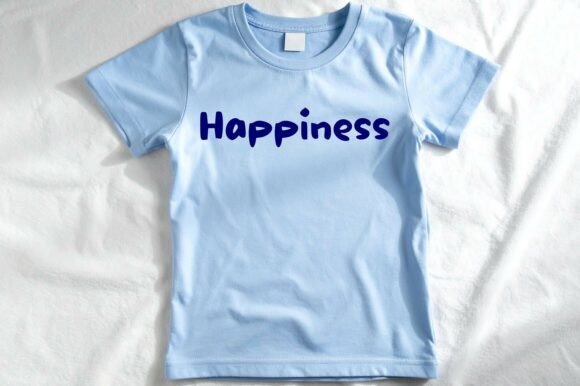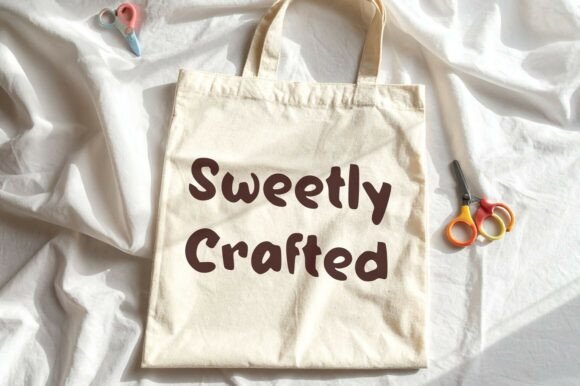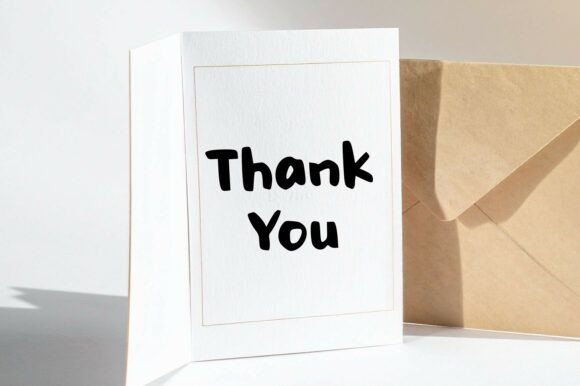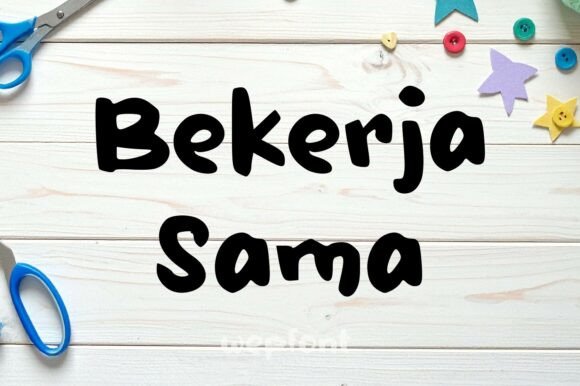
Bekerja Sama Font: A Playful and Bold Display Font for Your Designs
Are you looking for a font that can add a friendly yet confident personality to your designs? Look no further than Bekerja Sama, a playful and bold display font that’s perfect for creating approachable and eye-catching designs. In this article, we’ll explore what makes Bekerja Sama unique, its characteristics, and what you can expect from this fantastic font.
What Makes Bekerja Sama Unique?
Bekerja Sama stands out from other fonts with its distinctively chunky and slightly quirky letterforms. Each character carries a subtle handmade feel, preventing it from appearing too rigid or generic. This characteristic makes it feel authentic and adds a warm, personal touch to any design. The font’s slightly uneven, hand-drawn aesthetic gives it a unique charm that’s sure to grab attention.
Key Characteristics of Bekerja Sama
So, what makes Bekerja Sama a great choice for designers and crafters? Here are some of its key characteristics:
- Playful yet confident personality: Bekerja Sama exudes a friendly yet confident personality that’s perfect for designs that aim to be approachable and eye-catching.
- Hand-drawn aesthetic: The font’s slightly uneven, hand-drawn aesthetic gives it a unique charm that’s sure to grab attention.
- Highly readable: Bekerja Sama is highly readable even at smaller sizes, making it perfect for a variety of design applications.
- Robust presence: The font’s robust presence ensures it grabs attention and makes a lasting impression.
- Soft impact: The solid, rounded edges give it a soft impact while retaining strong visibility.
Why Choose Bekerja Sama?
So, why choose Bekerja Sama for your designs? Here are just a few reasons:
- Add a personal touch: Bekerja Sama’s handmade aesthetic adds a warm, personal touch to any design.
- Stand out from the crowd: The font’s unique charm and character ensure that your designs stand out from the crowd.
- Easy to use: Bekerja Sama is highly readable and easy to use, making it perfect for a variety of design applications.
In conclusion, Bekerja Sama is a playful and bold display font that’s perfect for designers and crafters looking to add a friendly yet confident personality to their designs. With its unique charm, highly readable characters, and comprehensive set of characters, Bekerja Sama is an excellent choice for a variety of design applications. Whether you’re creating a logo, poster, or social media graphic, Bekerja Sama is sure to make a lasting impression.